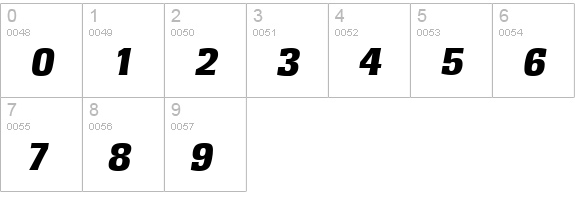
RochesterSerial-Heavy-Italic is a heavy, high-impact, italic variant in the RochesterSerial typeface family \xE2\x80\x94 well suited to high-impact headlines, posters, and display advertising.
RochesterSerial-Heavy-Italic font is a bold and elegant typeface that exudes sophistication and charm. Its heavy italic style adds a touch of drama and flair to any design project. Perfect for headings, titles, and other display purposes, this font commands attention and makes a statement. Best of all, RochesterSerial-Heavy-Italic font is completely free to download at FontsMarket.com. Whether you're a designer looking to add a unique touch to your work or a hobbyist looking to enhance your projects, this font is a versatile and stylish choice. Don't miss out on the opportunity to elevate your designs with this stunning typeface, available for free download now.